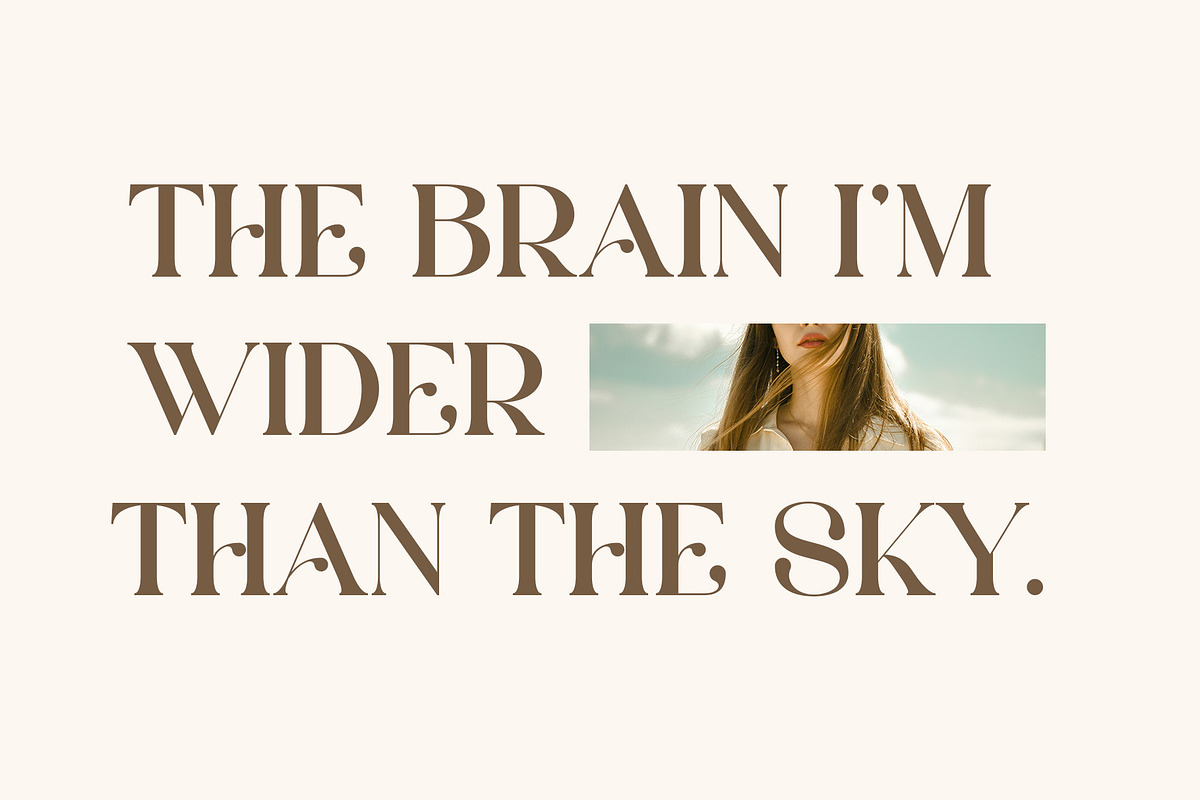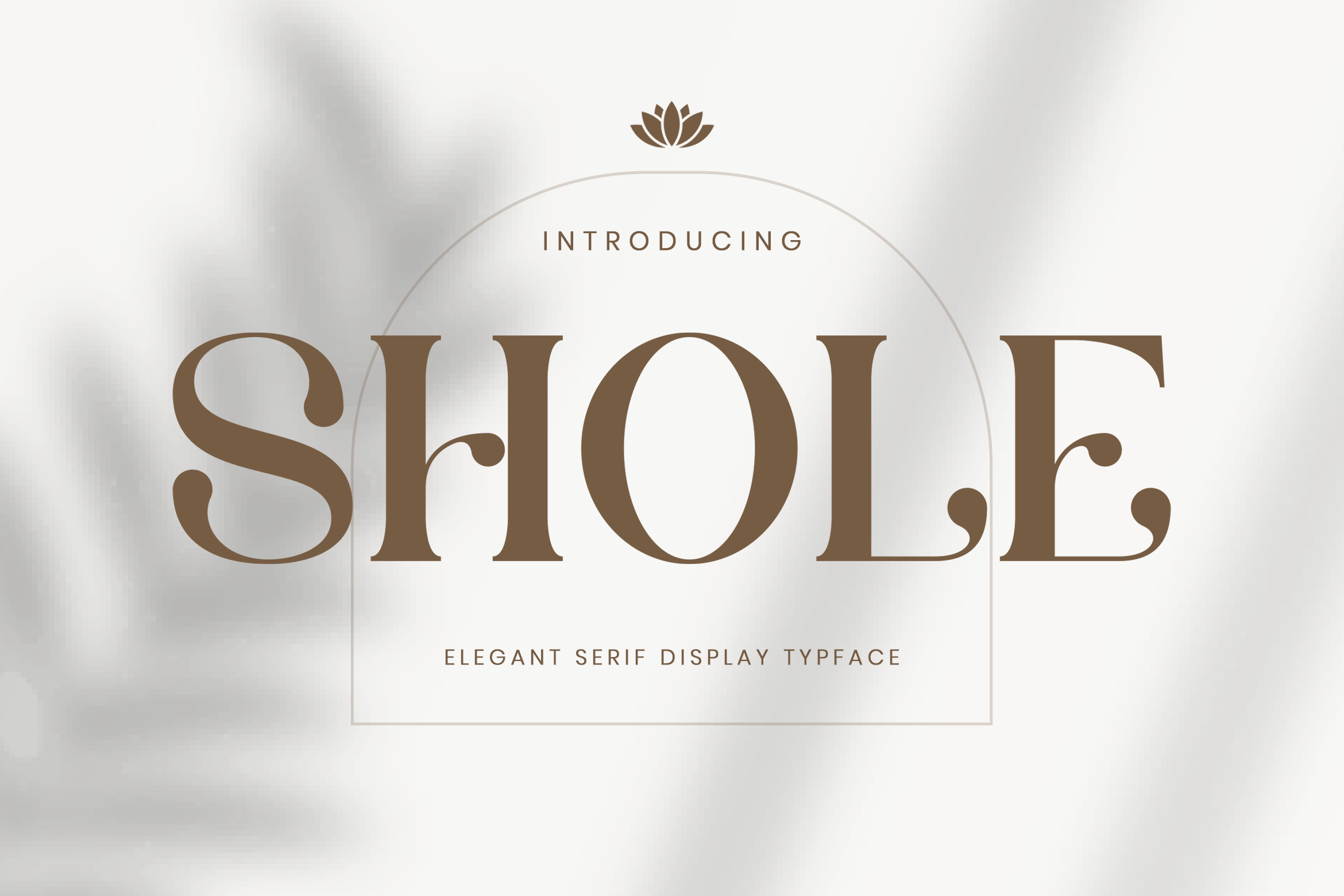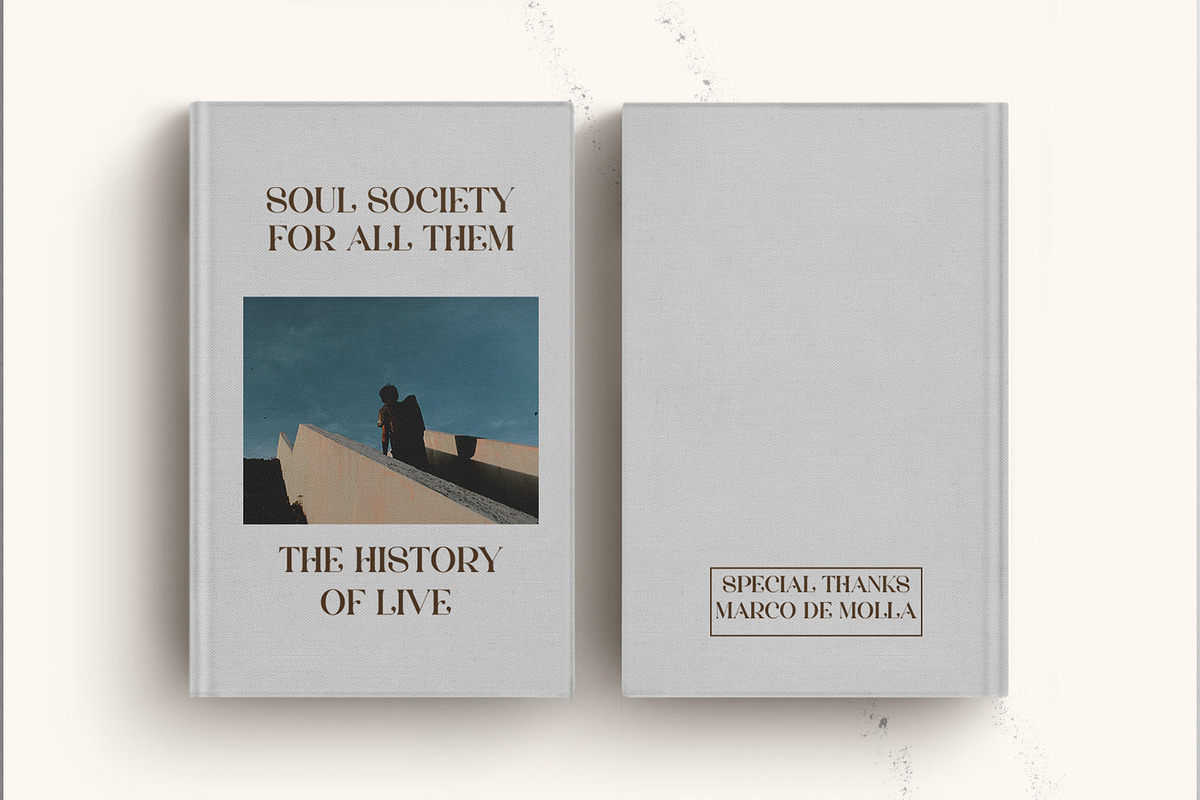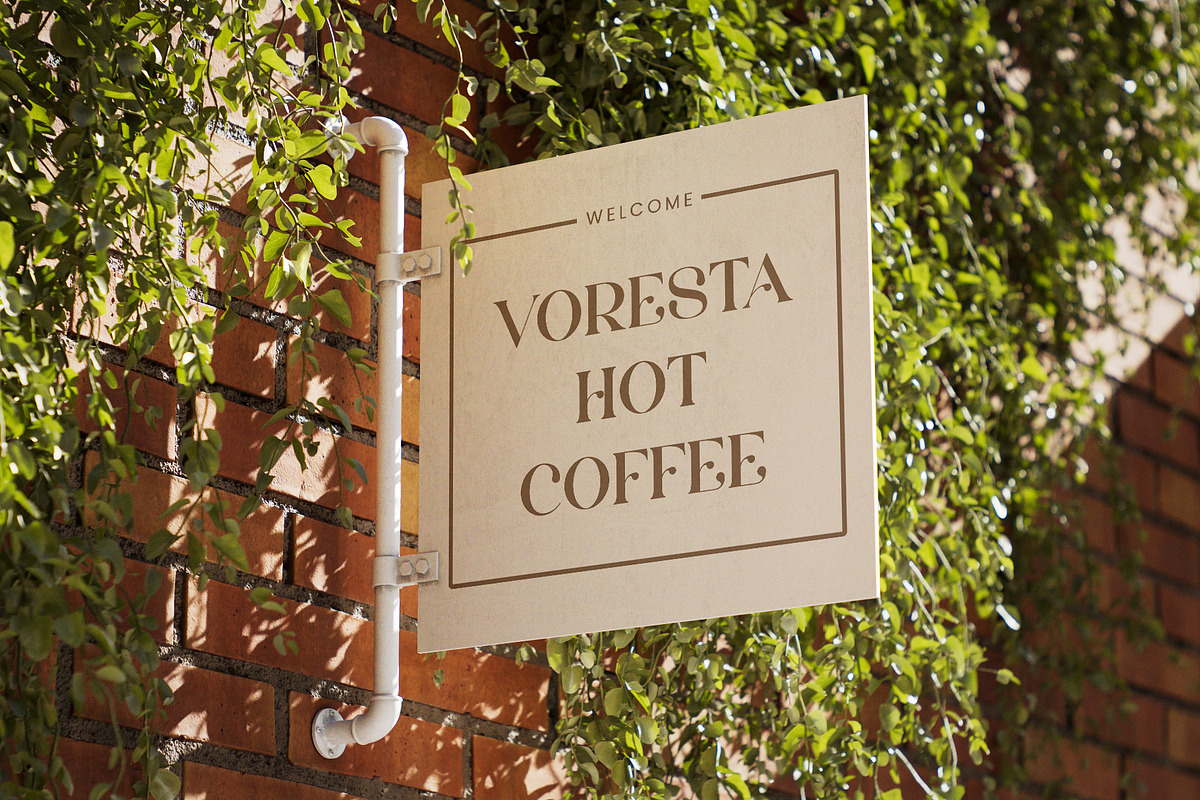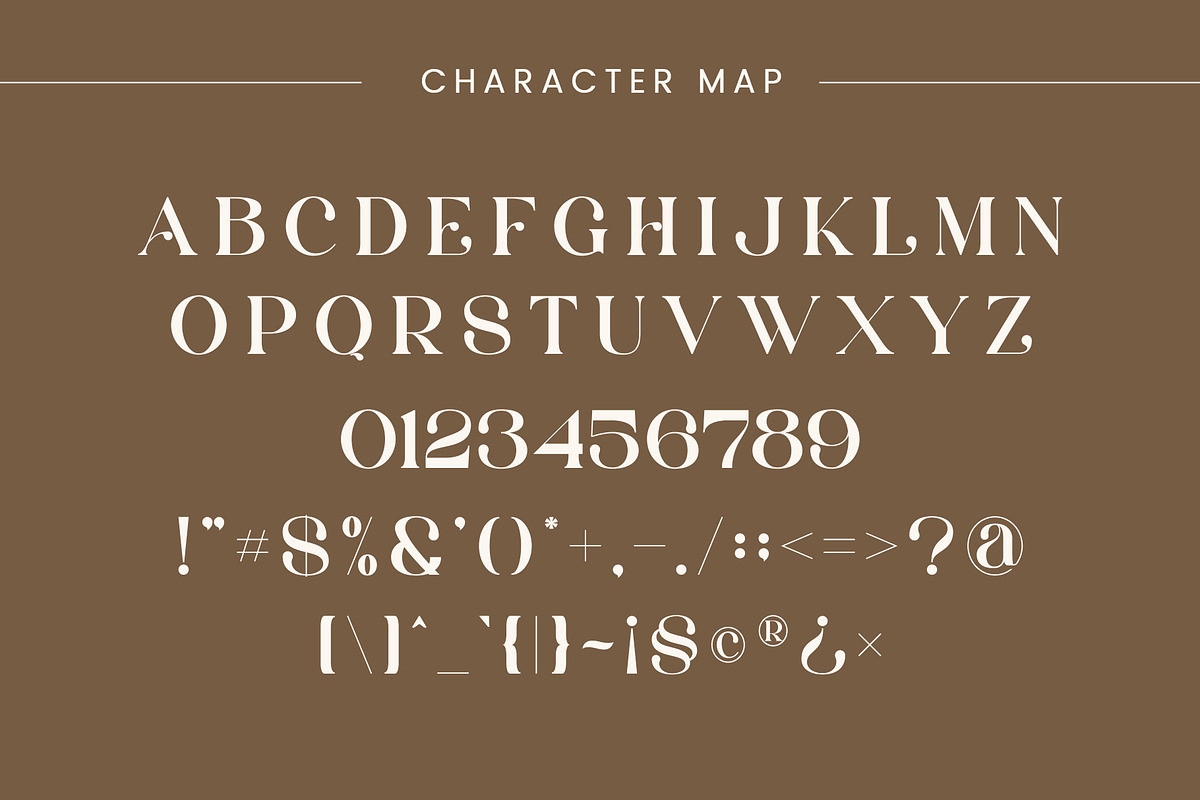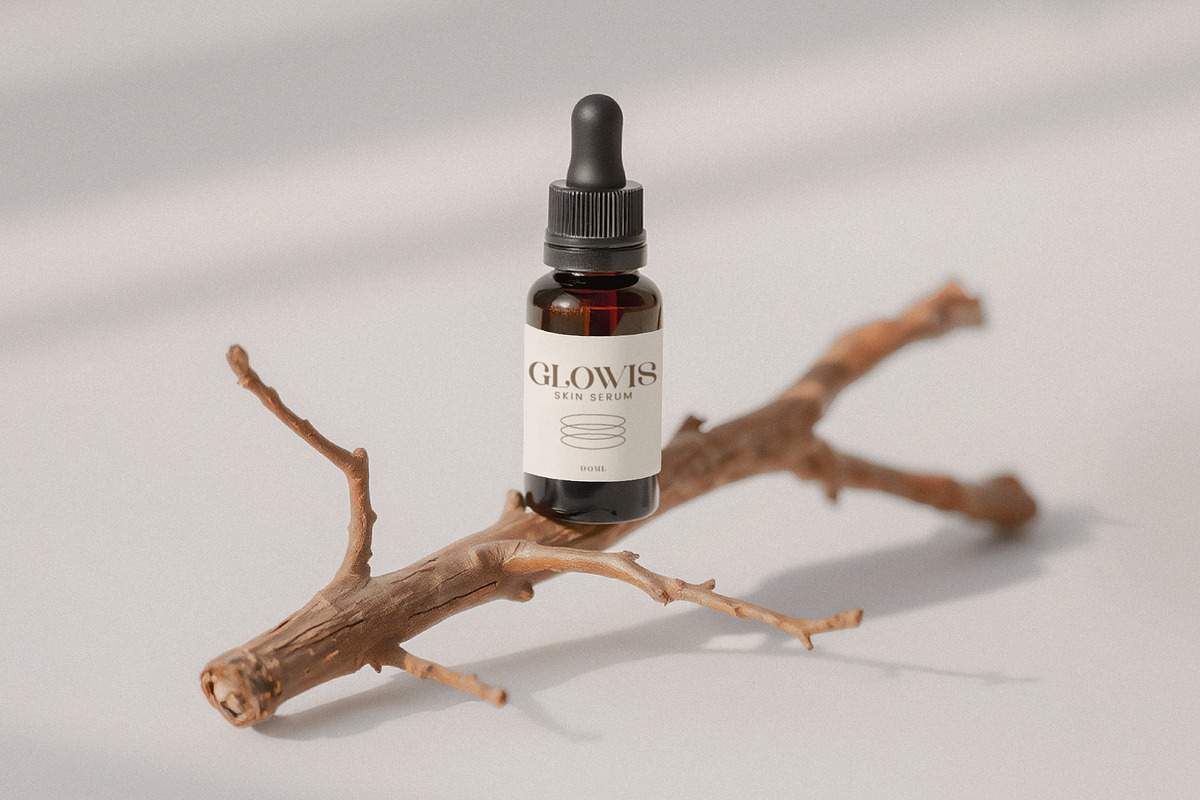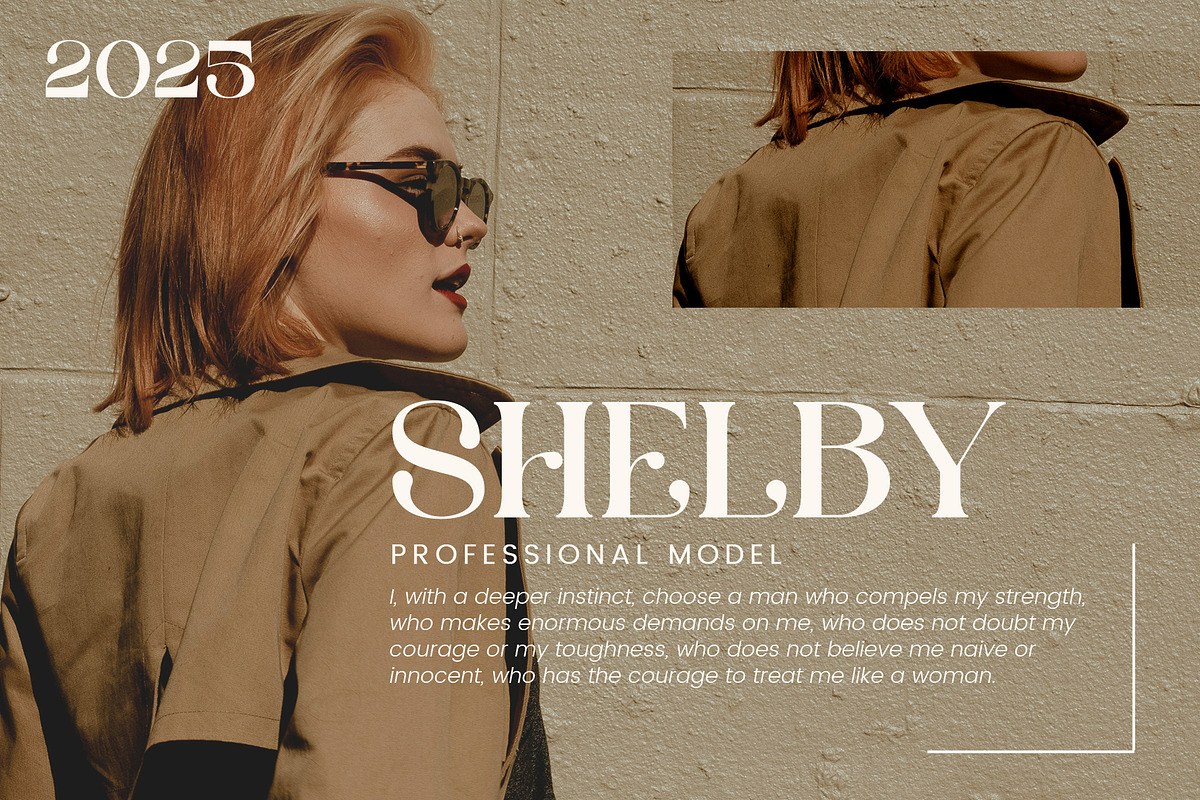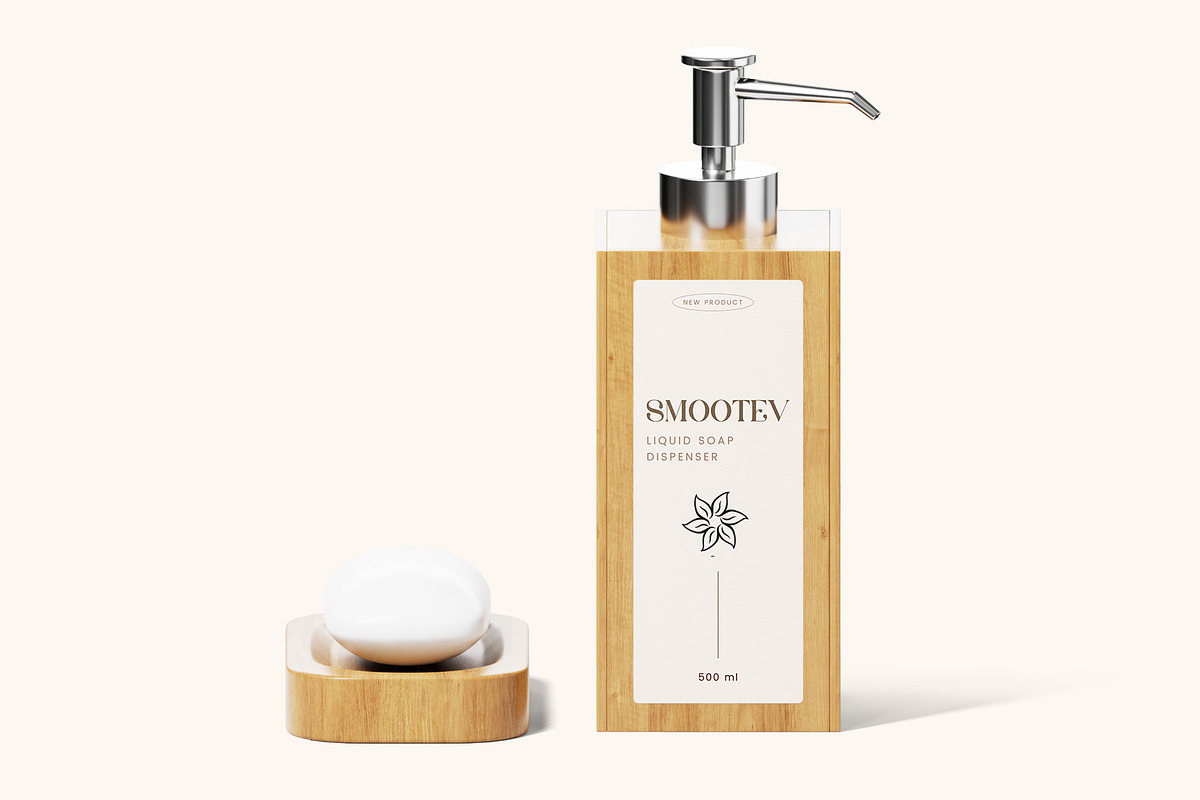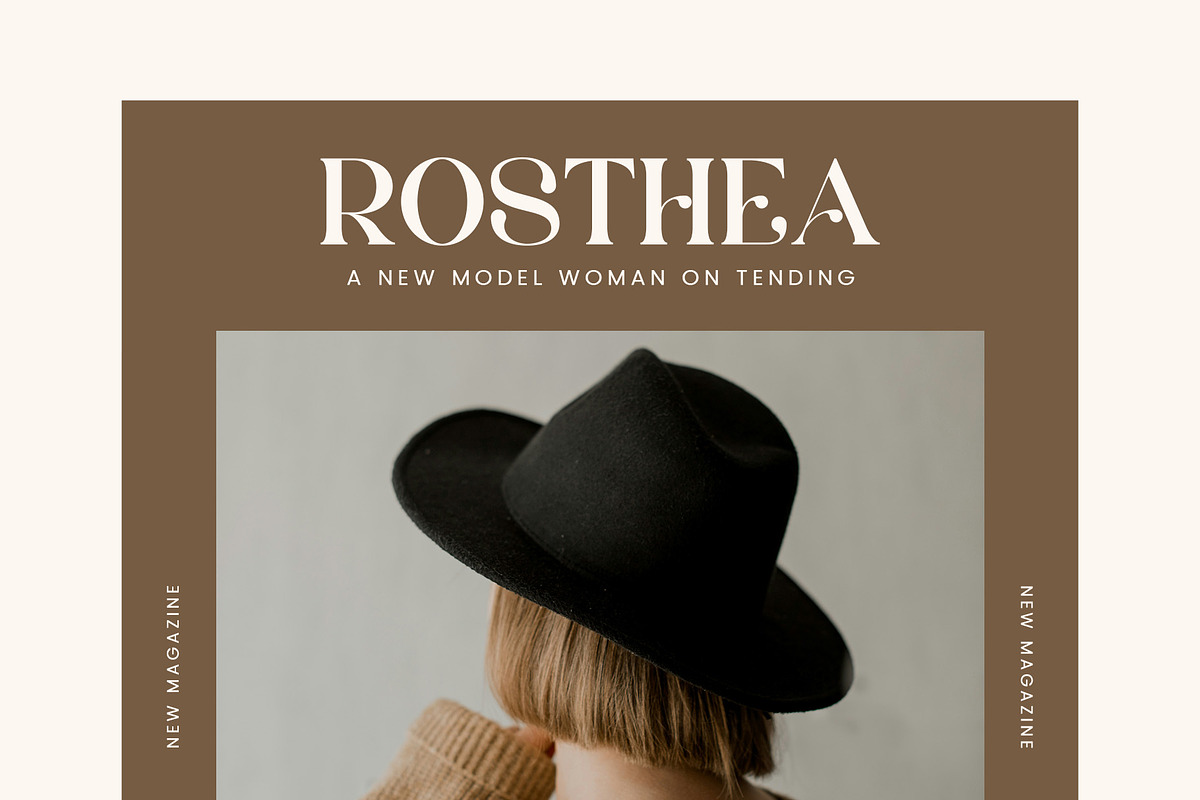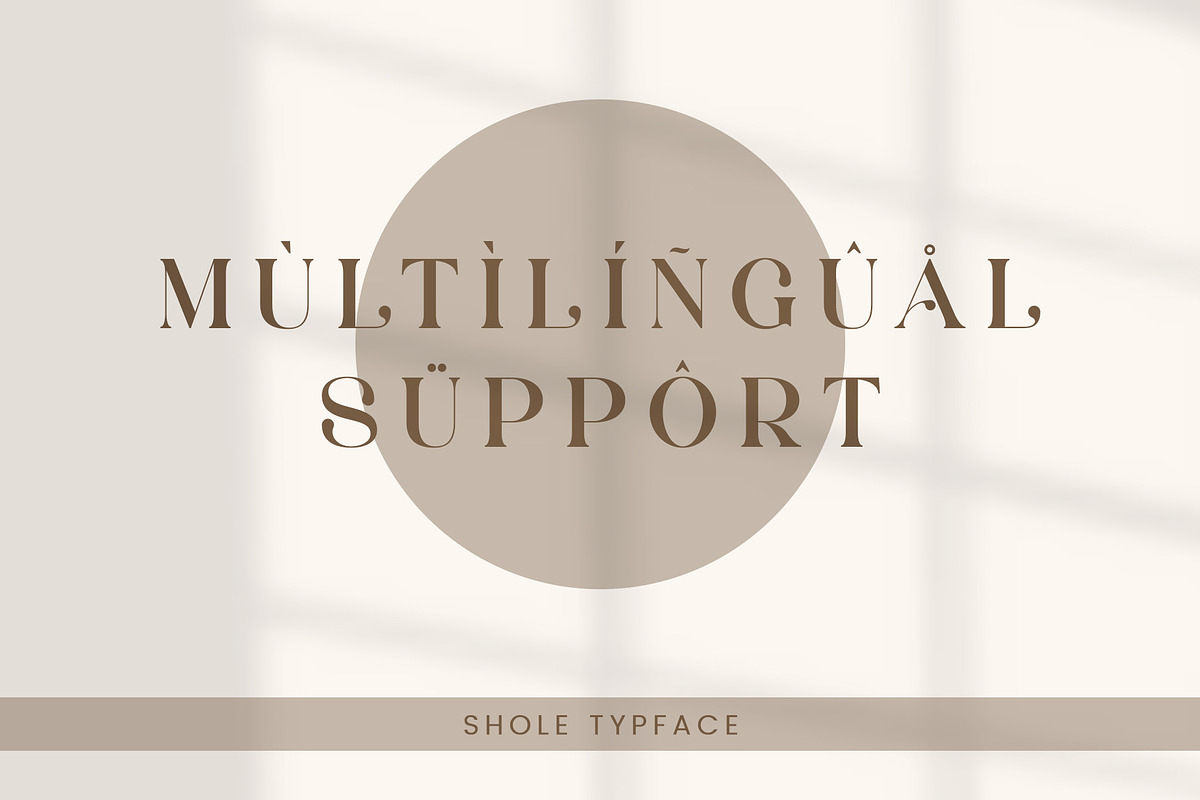
Shole - Display Serif Font
Shole Stylish Ligature Typeface, inspired by the famous minimalist logo perfect for the purposes of designing templates, brochures, videos, advertising branding, logos and more.